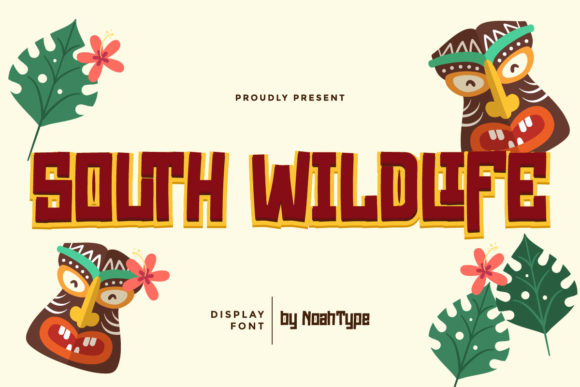
Prepare yourself for South Wildlife, a display font that's a true force of nature in the world of typography. As one of the best fonts for kids shirts, South Wildlife is a vibrant and fun-loving choice for little ones, capturing the essence of childhood and creating designs that ignite imagination.
Beyond its playful demeanor, South Wildlife is a font of remarkable versatility, its bold and thick letters adding a touch of boldness to a wide range of creative projects. Whether you're designing logos, advertisements, or eye-catching clothing, South Wildlife stands ready to elevate your work to new heights.
Crafted with meticulous care by the skilled hands at NoahType, South Wildlife is a PUA-encoded font, granting you effortless access to the full spectrum of glyphs and swashes. Unleash your creativity and add a sprinkle of whimsy to your designs, all with the effortless grace of South Wildlife.